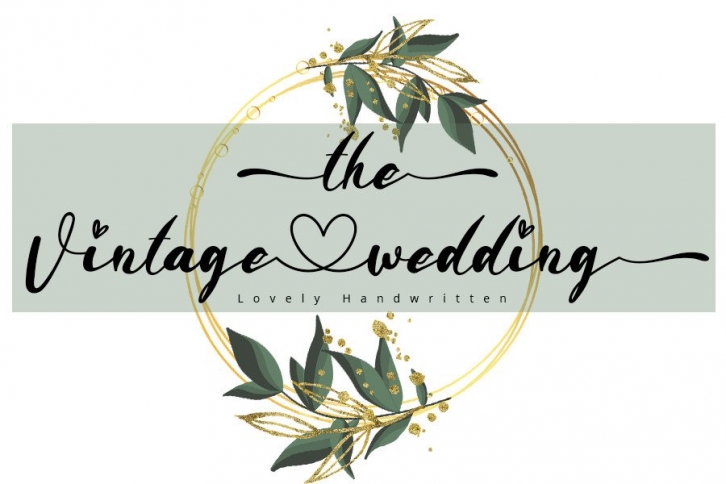
The Vintage Wedding is an incredibly romantic handwritten font. Add it confidently to your favorite creations, and let yourself be amazed by the outcome generated! This font is PUA encoded which means you can access all of the glyphs and swashes with ease!